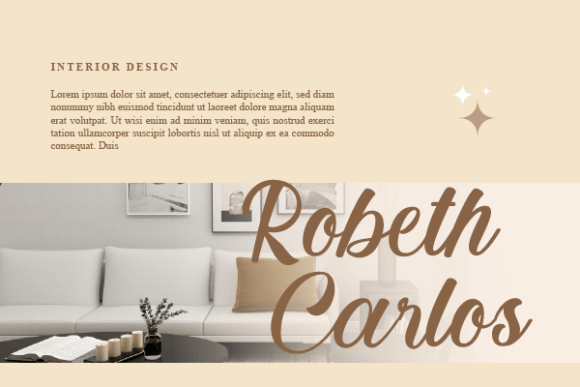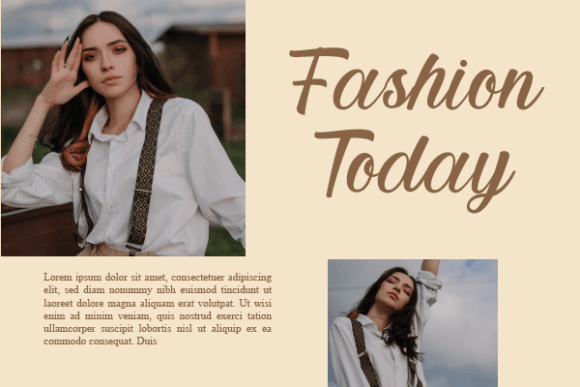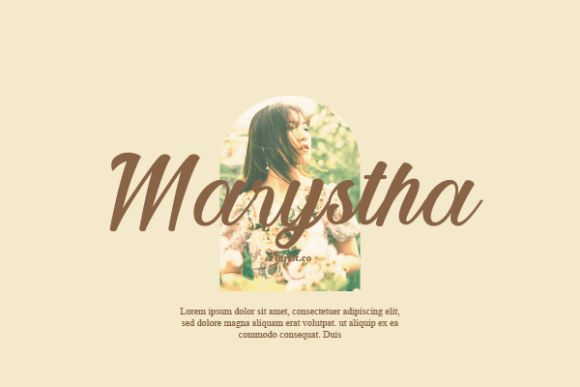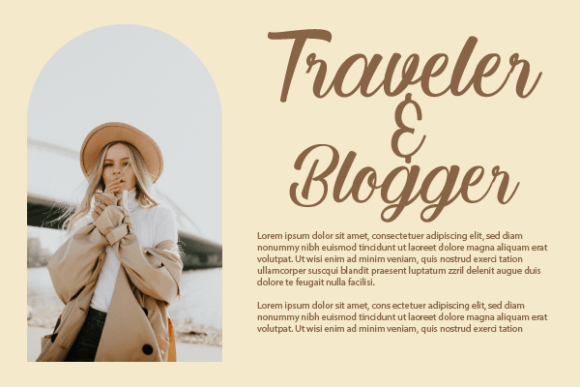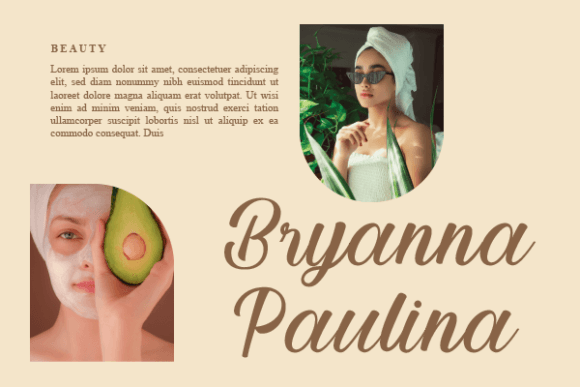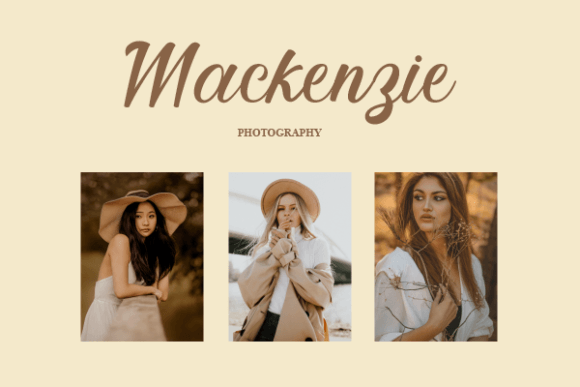
Discover the Elegance of Emmia Angela Font: Elevate Your Designs with a Touch of Sophistication
In the world of typography, few fonts manage to strike a balance between charm and elegance as effortlessly as Emmia Angela Font. This beautiful, handwritten font has captured the hearts of designers and crafters alike, and for good reason. Emmia Angela feels equally charming and elegant, making it the perfect addition to a wide range of design projects, from wedding invitations and thank you cards to quotes, greeting cards, logos, business cards, and beyond.
The Versatility of Emmia Angela Font
One of the standout features of Emmia Angela Font is its incredible versatility. Its elegant, cursive strokes and delicate flair make it suitable for a variety of applications, including:
- Wedding Invitations: Add a touch of sophistication and romance to your wedding stationery with Emmia Angela Font. Its beautiful, flowing script is sure to impress your guests and set the tone for your special day.
- Thank You Cards: Express your gratitude in style with Emmia Angela Font. Its charming, handwritten feel makes it perfect for thank you cards, gift tags, and other correspondence.
- Quotes and Greeting Cards: Emmia Angela Font is a great choice for highlighting inspirational quotes, phrases, and messages. Its elegant script adds a touch of class to any design, making it ideal for greeting cards, posters, and social media graphics.
- Logos and Business Cards: Take your branding to the next level with Emmia Angela Font. Its sophisticated, professional feel makes it perfect for logos, business cards, and other marketing materials.
Why Designers and Crafters Love Emmia Angela Font
So, what makes Emmia Angela Font so popular among designers and crafters? Here are just a few reasons:
- Unique and Eye-Catching: Emmia Angela Font is a one-of-a-kind font that is sure to grab attention. Its elegant, handwritten strokes and delicate flair make it a standout in any design.
- Easy to Read: Despite its ornate appearance, Emmia Angela Font is surprisingly easy to read, making it perfect for body text and longer passages.
- Highly Versatile: As mentioned earlier, Emmia Angela Font is incredibly versatile, making it suitable for a wide range of design applications.
- Easy to Pair: Emmia Angela Font pairs well with a variety of other fonts, making it easy to create beautiful, harmonious designs.
Tips for Using Emmia Angela Font in Your Designs
Ready to start using Emmia Angela Font in your designs? Here are a few tips to get you started:
- Use it Sparingly: Emmia Angela Font is a beautiful font, but it can be overwhelming if used too much. Use it sparingly to add a touch of elegance to your design.
- Experiment with Colors: Emmia Angela Font looks great in a variety of colors, from soft pastels to rich jewel tones. Experiment with different colors to find the perfect look for your design.
- Pair it with Other Fonts: As mentioned earlier, Emmia Angela Font pairs well with a variety of other fonts. Experiment with different pairings to find the perfect combination for your design.
Emmia Angela Font is a beautiful, elegant font that is sure to elevate your designs to the next level. Its versatility, unique appearance, and ease of use make it a favorite among designers and crafters. Whether you’re creating wedding invitations, thank you cards, quotes, greeting cards, logos, business cards, or any other design that needs a handwritten touch, Emmia Angela Font is a great choice. So why not give it a try and see the difference it can make in your designs?